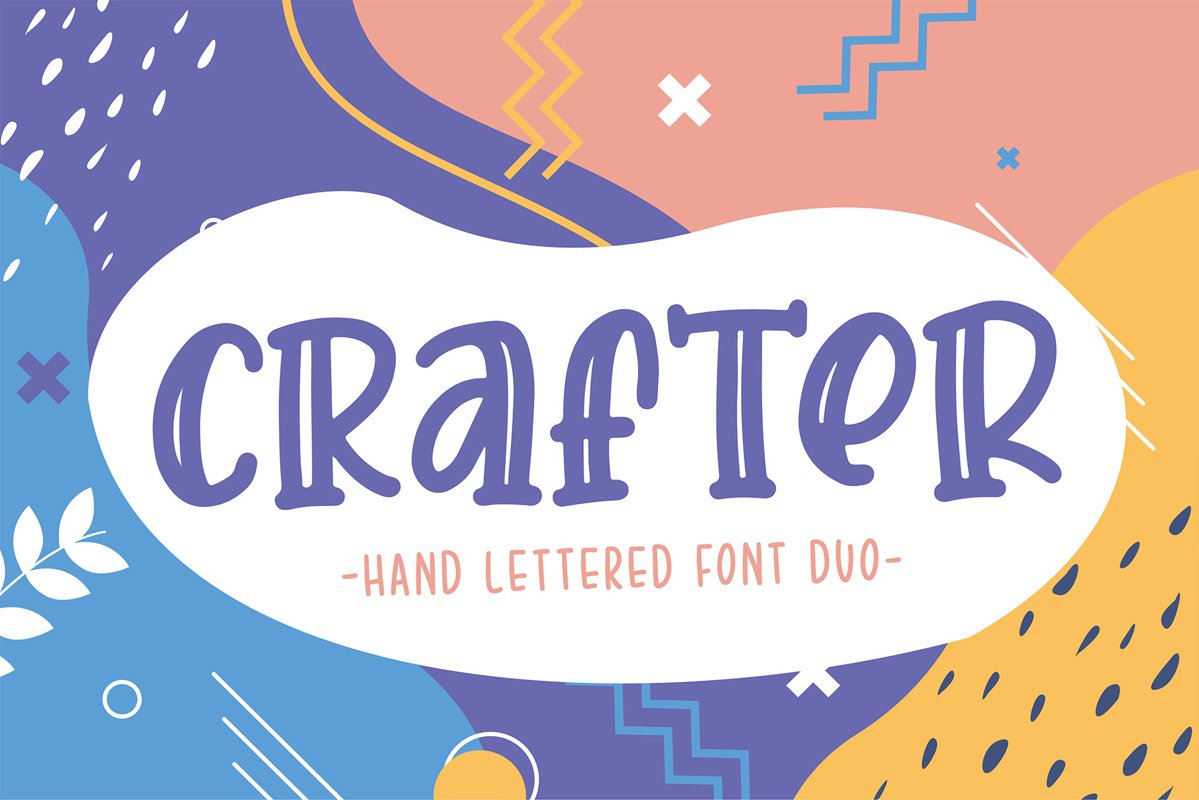
Crafter Font Duo - Best Seller
Hello Crafter!
Say hello for our best seller " Crafter Font Duo " with Natural Handwritten Artistic Style,
this is perfect for branding, logos, packaging, masterheads and more.
Crafter Font Duo features :